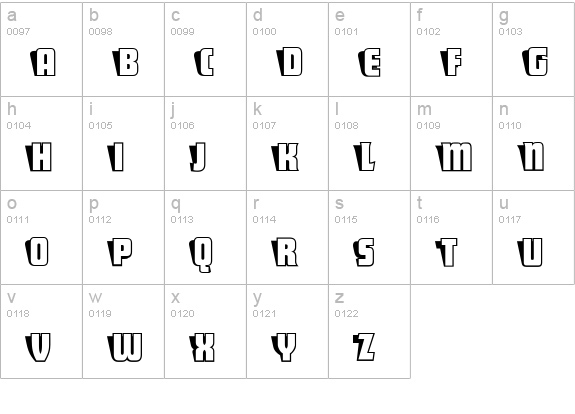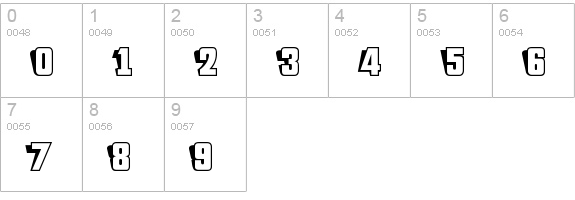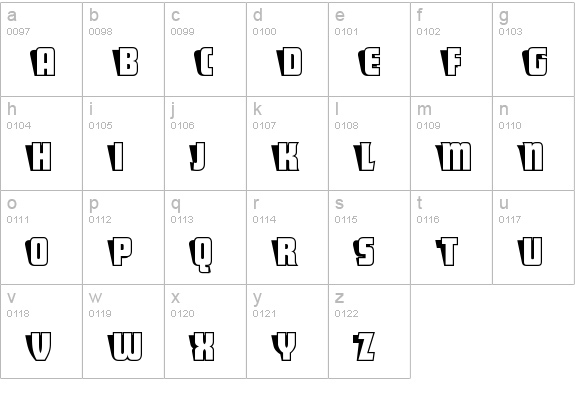
Sho-Card Caps NF font is a stylish and modern typeface that exudes charm and sophistication. With its unique design and elegant curves, this font is perfect for adding a touch of class to any project. Whether you're creating a logo, branding materials, or invitations, Sho-Card Caps NF font will make your text stand out. The best part? This font is available for free download at FontsMarket.com. Simply head over to the website and start using this beautiful font in your designs today. Don't miss out on the opportunity to add a touch of elegance to your projects with Sho-Card Caps NF font. Download it now and elevate your typography game!